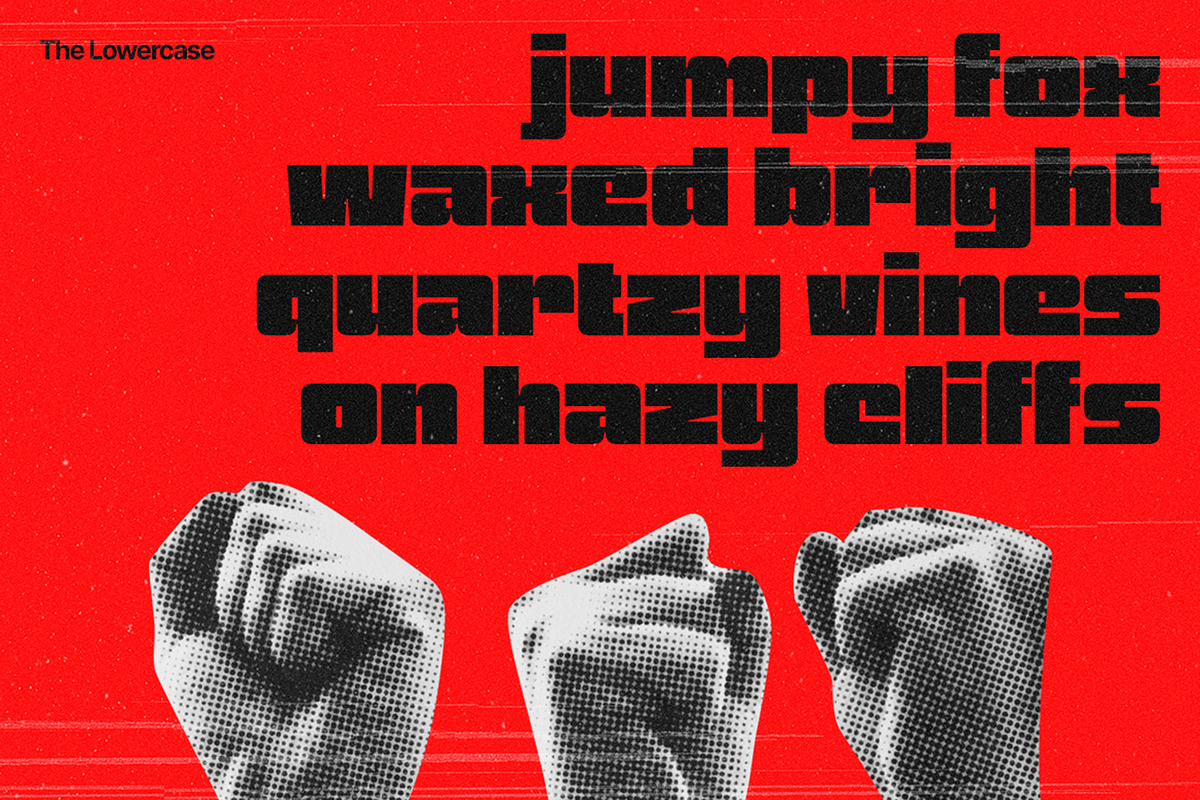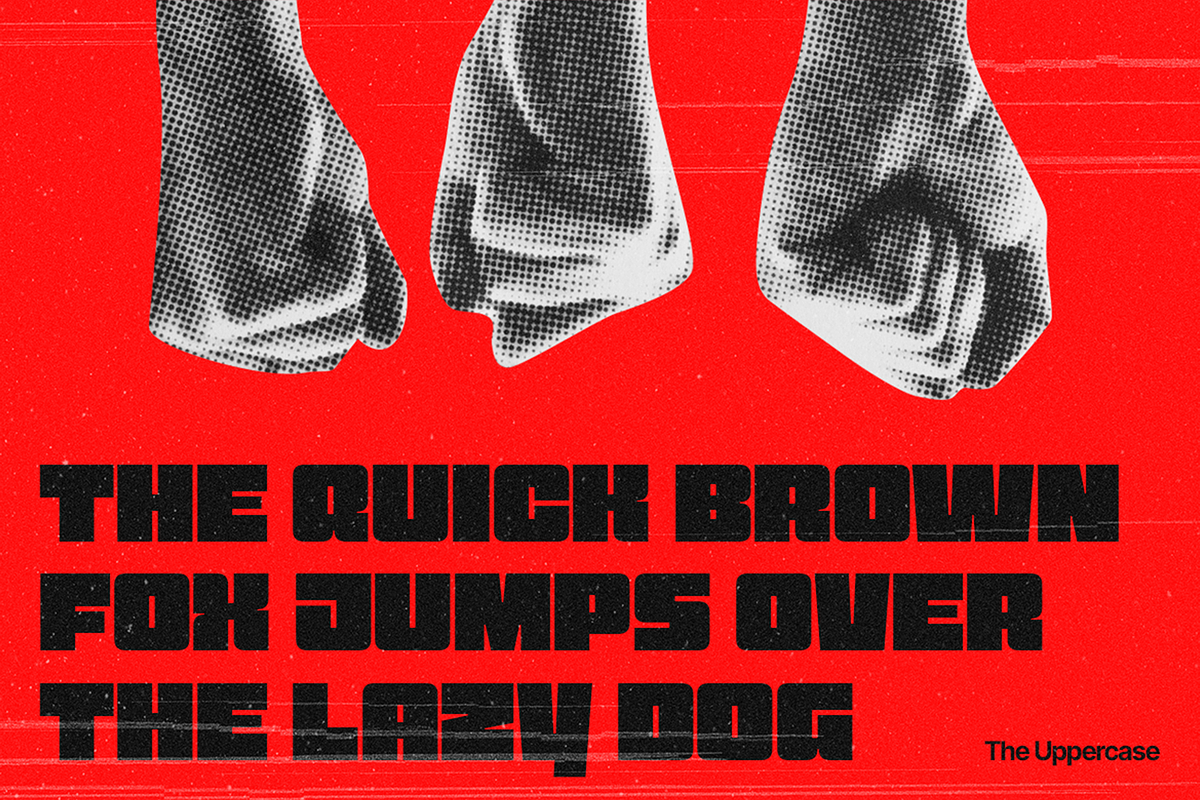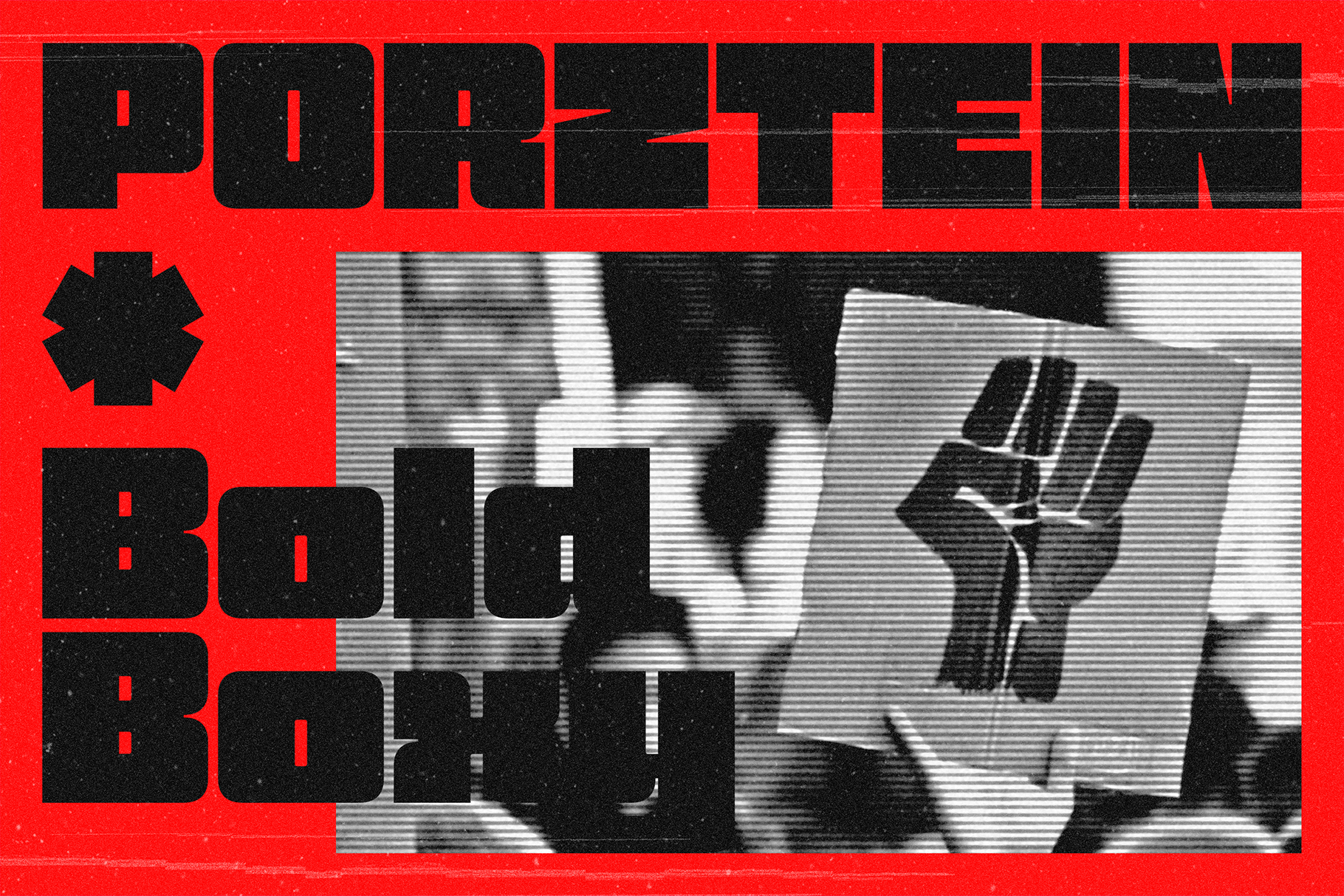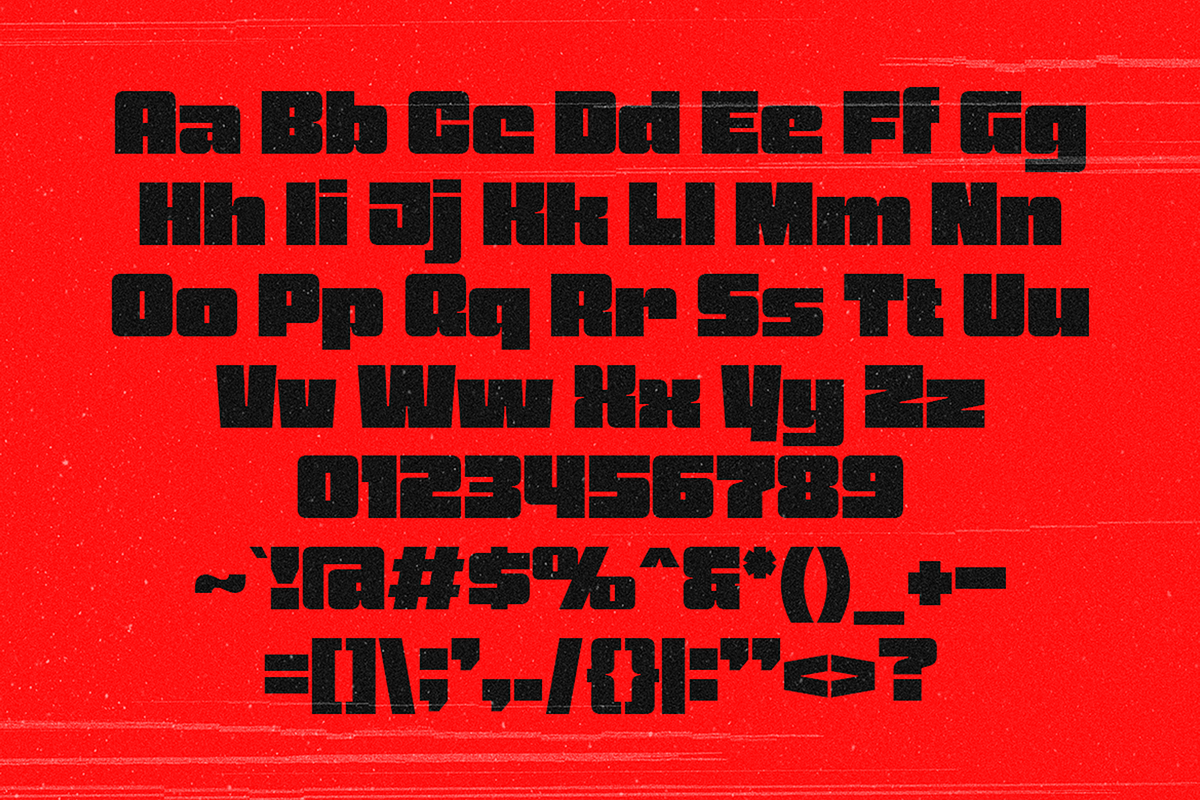
Porztein - Bold and Boxy Fonts
Porztein - Speak Boldly, Stand Firm.
This is not just a font; it’s a declaration. Porztein is bold, blocky, and unapologetically squared, making every word a statement. With its tight, minimal negative space, it commands attention and demands respect. Perfect for branding that needs to scream confidence, headlines that hit hard, and designs that stand their ground.
No fluff, no compromise—just pure, raw impact.
Porztein. Because bold isn’t optional.